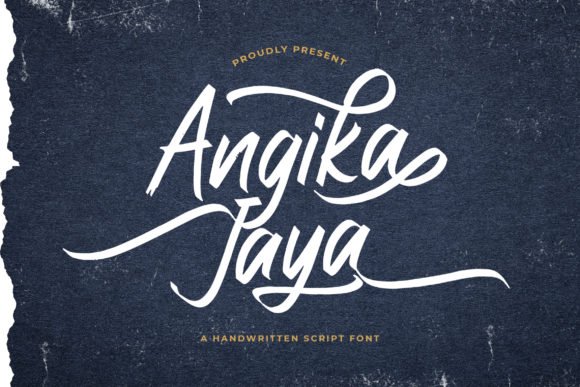
Unleash Your Creativity with Angika Jaya Font
Do you remember that moment when an idea strikes you, and you can’t wait to bring it to life? The thrill of creating something new, the rush of adrenaline as your imagination runs wild – it’s a feeling that never gets old. For designers, this moment is a constant companion, driving them to push the boundaries of innovation and artistry. And when it comes to bringing their ideas to life, the right font can make all the difference.
Enter Angika Jaya Font, a delicate, elegant, and flowing handwritten font that adds a touch of sophistication to any design. With its beautiful and well-balanced characters, it’s the perfect addition to any creative project. Whether you’re designing a wedding invitation, a branding campaign, or a digital product, Angika Jaya Font is sure to elevate your design to the next level.
Key Features of Angika Jaya Font
- Size and Resolution: The font is designed to be highly scalable, with a minimum size of 12 points and a recommended resolution of 300 DPI for optimal legibility.
- Language Support: Angika Jaya Font supports the Angika language, making it an ideal choice for publications, websites, and other materials targeting this language community.
- Unique Characteristics: This font features a unique blend of traditional and modern elements, resulting in a distinctive and elegant design that sets it apart from other fonts.
- Font Style: Angika Jaya Font is available in both regular and bold styles, offering users flexibility in choosing the right font weight to suit their design needs.
- Unicode Compliance: The font is Unicode-compliant, ensuring that it can display a wide range of characters and symbols from the Angika language and other languages that use the Unicode standard.
Review of Angika Jaya Font
Overall, I think Angika Jaya is a great addition to any font collection, offering a unique blend of traditional and modern elements. Here are a few things that stand out:
- ✨ The font’s intricate details and ornamentation are impressive, making it perfect for projects that require a touch of elegance and sophistication.
- ✨ Angika Jaya’s flexibility in terms of font sizes and styles makes it suitable for a wide range of applications, from print materials to digital interfaces.
- ✨ The font’s cultural significance and historical roots add a layer of depth and meaning to any project that uses it.
- ⚠️ The font may be overwhelming for certain projects, particularly those with a lot of text or a minimalist aesthetic.
- ⚠️ Angika Jaya’s intricate details can make it difficult to read at very small font sizes or in low-light environments.
Overall, I think Angika Jaya is a solid choice for designers who want to add some visual interest and cultural depth to their projects. While it may not be suitable for every project, it’s definitely worth considering for those that require a unique and eye-catching font.
Angika Jaya Font: A Practical Application Guide
Angika Jaya Font is ideal for creating unique and eye-catching designs for:
– Traditional or cultural events
– Travel or tourism branding
– Cultural or educational materials
Tips for Getting the Most Out of Angika Jaya Font
To get the most out of Angika Jaya Font, try:
– Combining it with other bold or playful fonts for contrast
– Adjusting the font size and color to suit your design
– Experimenting with different font styles and weights
Alternatives to Angika Jaya Font
Druk Font
The Druk Font is a sans-serif typeface designed by Indian typographer, Sagar Mahapatra. It is highly legible and works well for digital displays. Use Druk Font for digital products, websites, and mobile applications where a clean and modern look is required.
Compared to Angika Jaya Font, Druk Font has a more minimalist and modern design, making it suitable for digital products. While Angika Jaya Font is more ornate and traditional, Druk Font is more versatile and adaptable to different contexts.
Nalina Font
The Nalina Font is a sans-serif typeface designed by Indian typographer, Tanya Shrivastava. It is highly legible and works well for body text. Use Nalina Font for publications, magazines, and books where a clear and readable font is required.
Can I customize the Angika Jaya Font for my specific design needs?